2 Google Fonts Similar to Verdana
Verdana was a popular sans-serif font in early 2000s. This was because it was used for Microsoft products. It features a large x-height, and wide proportions. The font works great on computer screens, but isn't recommended for high quality print.
For these reasons, it is such a popular font. Verdana was a challenge to find a good similar looking font.
What Google Fonts are Similar to Verdana?
The fonts that are closest to Verdana from Google Fonts are:
- Jost
- Arimo
These are the most similar looking fonts on that library.
Lets dive into the similarities and differences to see if anyone of these would be a good fit for your project.
Jost
Jost makes a great free alternative to Verdana. Although it is not an exact match, there are a lot of similarities.
The lowercase letters of Jost match Verdana really well. There are some minor differences such as the "t" in Jost not have a little curve at the end. However the formation of the letters are almos the same.
The main difference is that many of the letters are close to the same height in Verdana. Whereas in Jost, most of the letters vary in height.
Compare for yourself below.
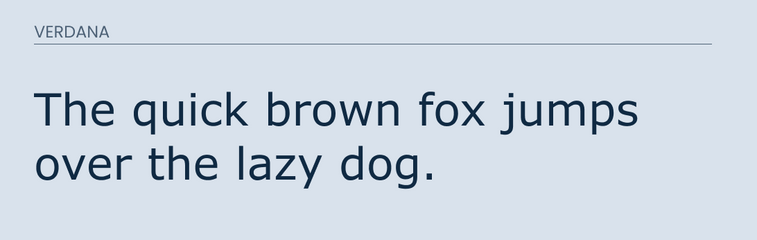
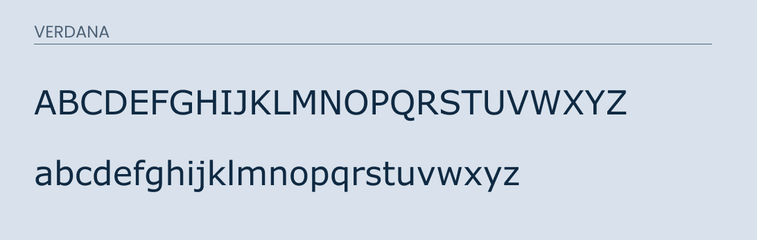
Arimo
Arimo is another good looking font that is similar to Verdana. Many of the letters are the same with some very minor differences in a few of the letters.
If you look closely, you will notice the "j", "a", and "y" are different. While in the uppercase the letters are very similar except for the "M".
Final Thoughts